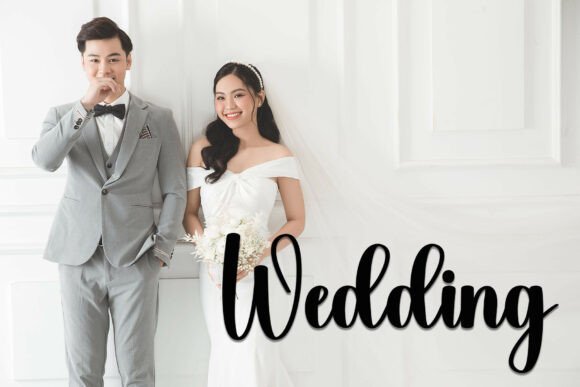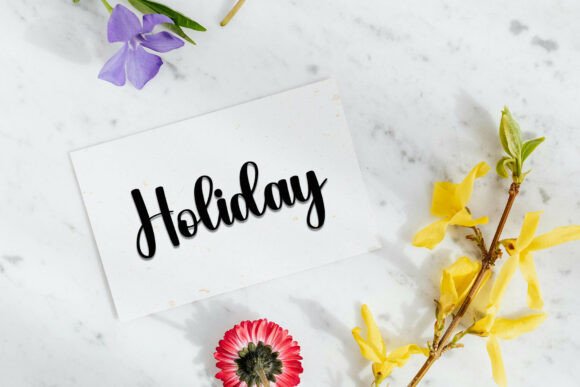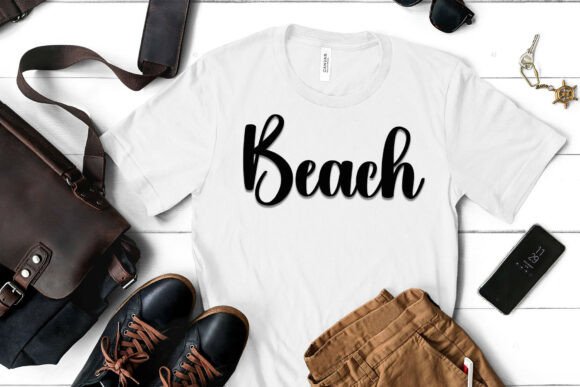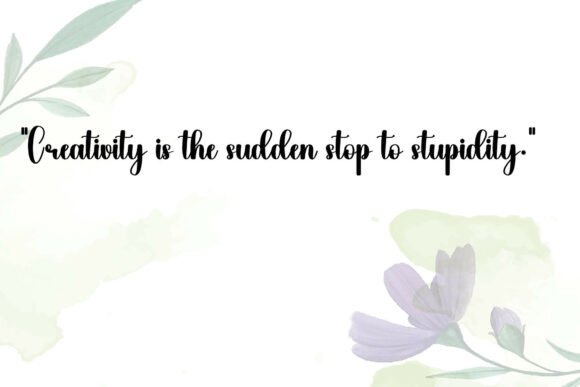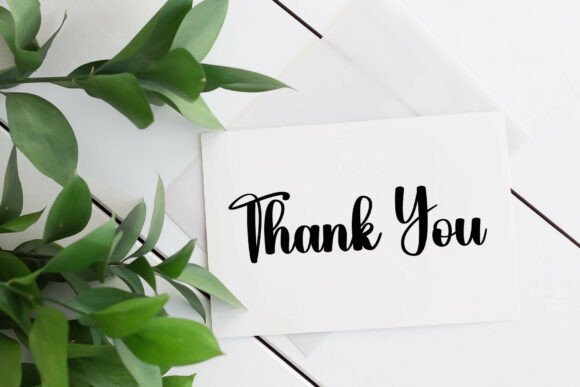
Unleash the Spoirit of Halloween with a Spine-Chilling Halloween Font
As the witching hour approaches, designers and crafters are on the lookout for the perfect typography to add a touch of eerie elegance to their Halloween-themed projects. Look no further than the Halloween Font, a trendy handwritten font that embodies the contemporary atmosphere and impeccable form of timeless classic calligraphy.
The Essence of Halloween Font
Inspired by the classic calligraphy of yesteryear, the Halloween Font is a masterful blend of traditional and modern elements. Its unique character design and flowing strokes evoke a sense of sophistication and refinement, making it an ideal choice for designers seeking to add a touch of luxury to their Halloween-themed creations.
Key Features of Halloween Font
- Trendy Handwritten Style: The Halloween Font boasts a fresh and modern handwritten style that is sure to capture the attention of your audience.
- Contemporary Atmosphere: With its clean lines and elegant strokes, this font exudes a sense of contemporary sophistication.
- Impeccable Form: The Halloween Font’s impeccable form ensures that your designs look polished and refined.
- Elegance and Class: Add a touch of luxury to your designs with this font’s inherently elegant and classy style.
Whether you’re a designer, crafter, or DIY enthusiast, the Halloween Font is the perfect addition to your typography collection. Use it to create:
- Eye-catching Posters and Flyers: Create spooky posters and flyers that will grab the attention of your audience.
- Elegant Invitations: Design sophisticated invitations for Halloween parties, events, or gatherings.
- Creepy Crafts: Add a touch of elegance to your Halloween-themed crafts, such as cards, gift tags, or decorations.
- Web Graphics and Logos: Use the Halloween Font to create web graphics, logos, or social media assets that will make your brand stand out.
Tips for Using Halloween Font
- Pair with Bold Colors: Combine the Halloween Font with bold, vibrant colors to create a striking visual effect.
- Experiment with Textures: Add depth and interest to your designs by experimenting with textures and patterns.
- Play with Sizes: Use varying font sizes to create visual hierarchy and emphasize key elements in your design.
The Halloween Font is a versatile and elegant typography solution that’s perfect for designers and crafters seeking to add a touch of sophistication to their Halloween-themed projects. With its trendy handwritten style, contemporary atmosphere, and impeccable form, this font is sure to become a staple in your typography collection. So why wait? Unleash the spirit of Halloween with this spine-chilling font and make your designs howl with elegance!